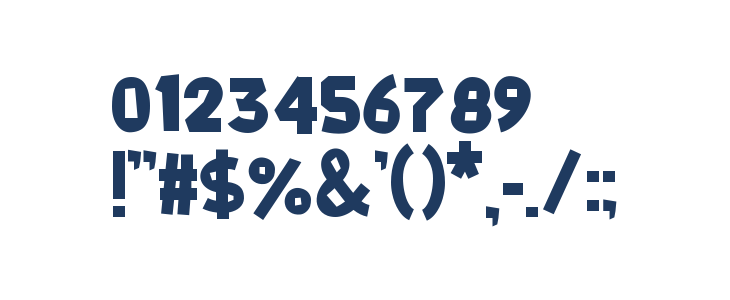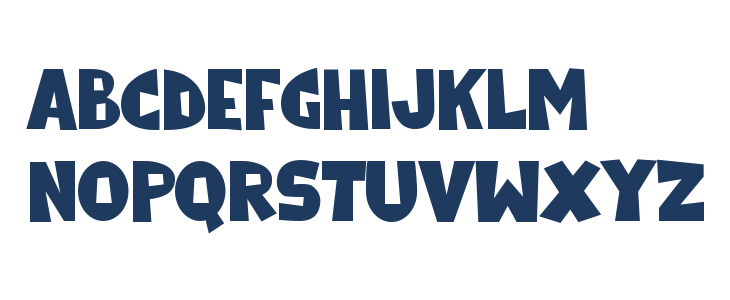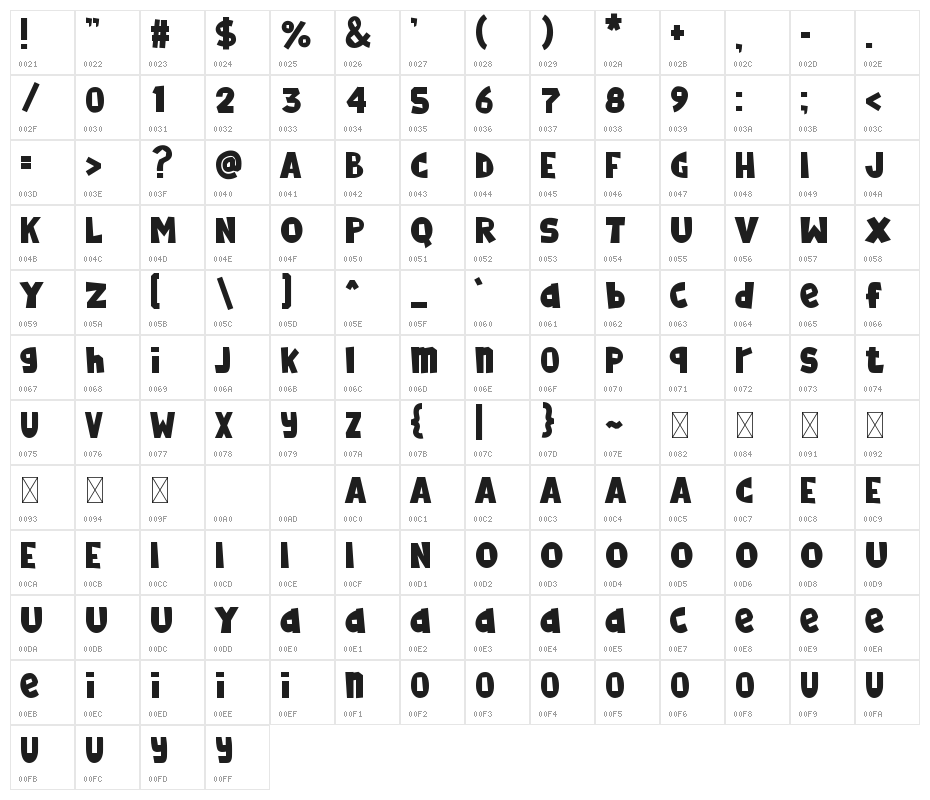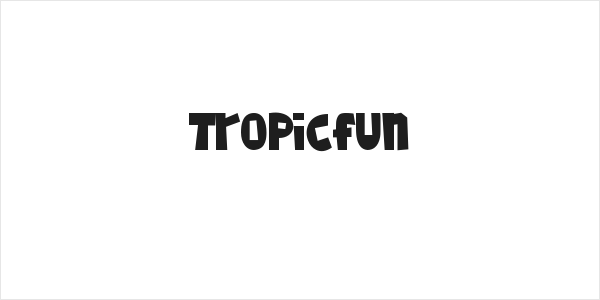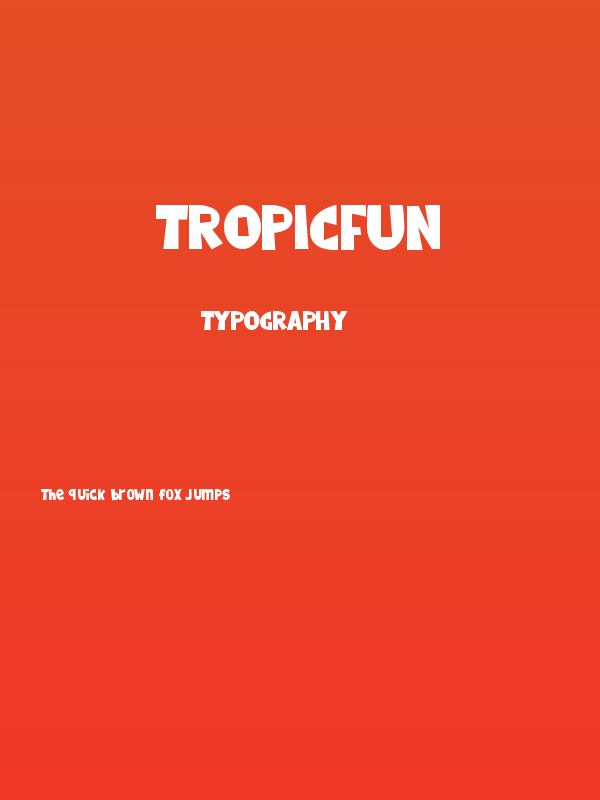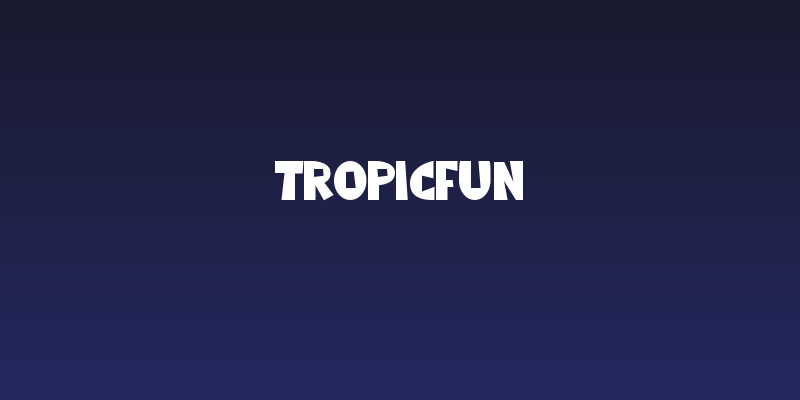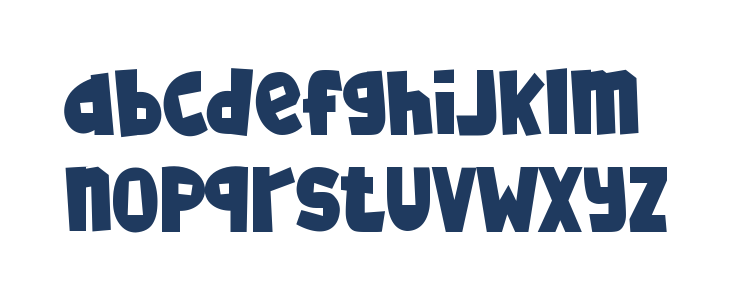
Tropicfun Font
Tropicfun Description
Playful, bold display font with irregular, chunky letterforms and a hand-cut appearance, featuring high contrast and wide proportions for a lively, energetic feel.
| Overall Style | Playful, Decorative, Modern |
| Use Case | Headlines, Posters, Logos, Event Materials |
| Proposed Projects | ChildrenΓ’β¬β’s books, party invitations, posters, branding for fun or tropical themes, event flyers. |